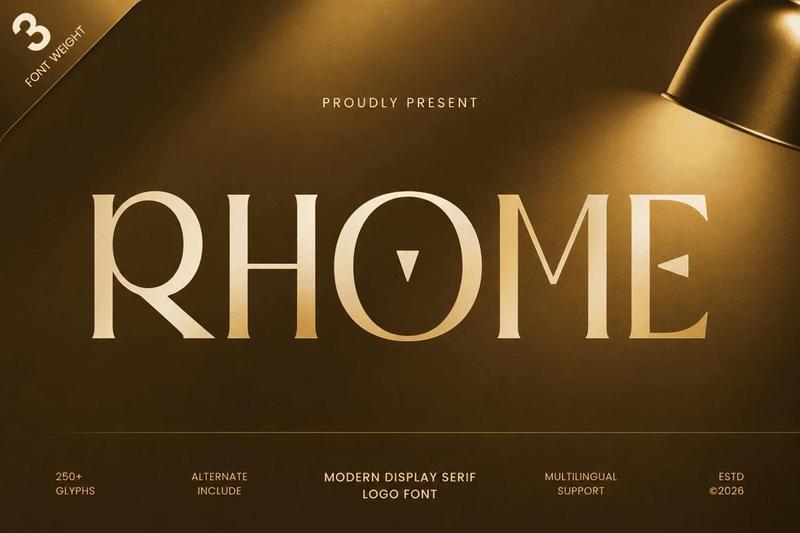
**RHOME** is a **modern display serif logo font** designed to bring elegance, confidence, and refined visual character to premium design projects. With stylish serif details, balanced proportions, and a polished display presence, this typeface is perfect for luxury logos, editorial headlines, fashion branding, packaging, and sophisticated visual identities.
Crafted for designers who need typography with both impact and elegance, **RHOME** blends modern display aesthetics with timeless serif charm. Its distinctive letterforms create a memorable and upscale impression, making it ideal for boutique brands, beauty products, lifestyle labels, magazine titles, and premium marketing visuals.
Whether used as a logo mark, headline, invitation title, or packaging centerpiece, **RHOME** delivers clarity, elegance, and strong personality across both print and digital media.
**RHOME Modern Display Serif Logo Font Features**
* Modern display serif design with elegant logo appeal
* Prepared with 3 weight inside: light, regular and bold
* Perfect for luxury branding, editorials, packaging, and premium identities
* Stylish serif details with refined visual proportions
* Ideal for fashion, beauty, lifestyle, boutique, and creative industries
* Uppercase, lowercase, numerals, and punctuation included
* OpenType features for enhanced typographic styling
**Create refined visual elegance with RHOME the perfect display serif font for luxury logos, stylish branding, and premium editorial design.**